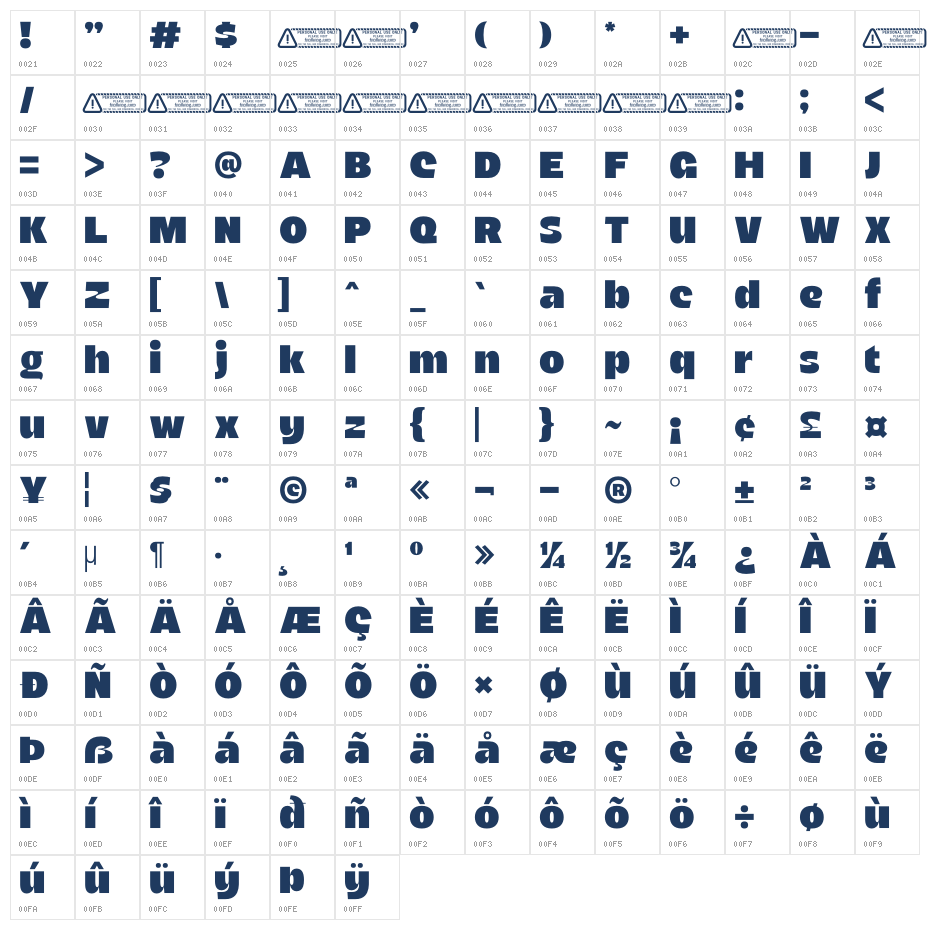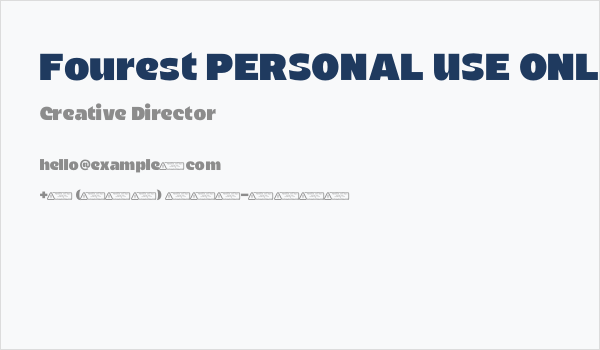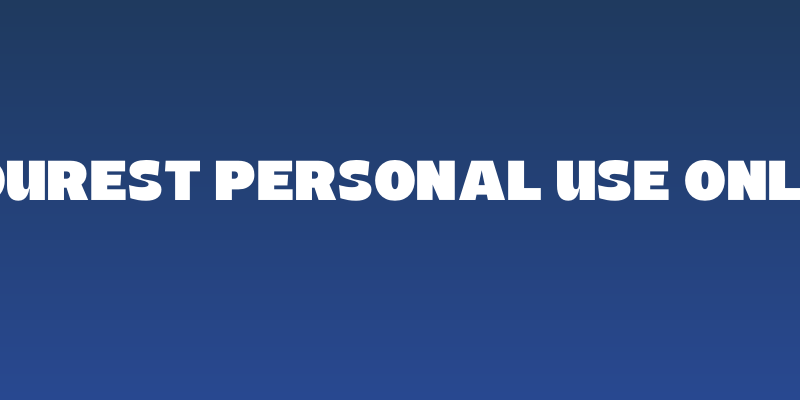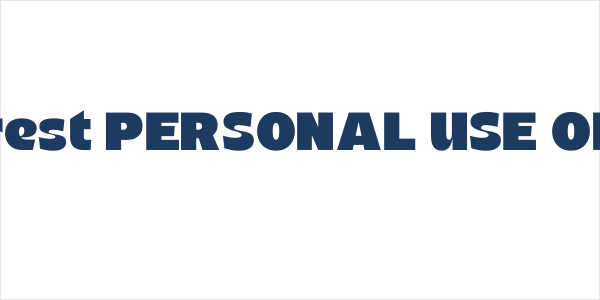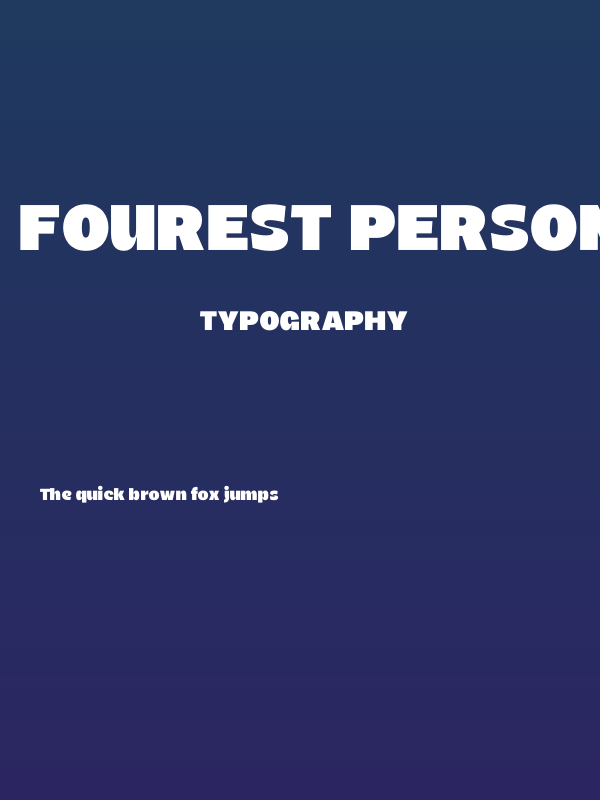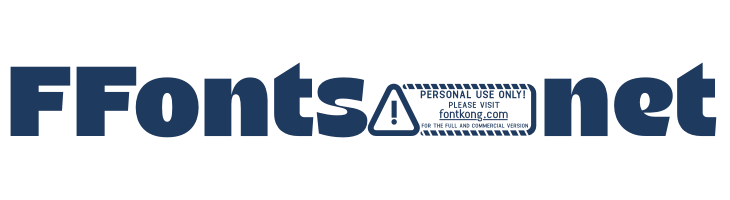
Fourest PERSONAL USE ONLY! Font
Fourest PERSONAL USE ONLY! Description
Bold, chunky, sans-serif font with a playful and modern style, characterized by thick strokes and rounded edges.
| Overall Style | Modern, Bold, Playful |
| Use Case | Headlines, Display, Logos |